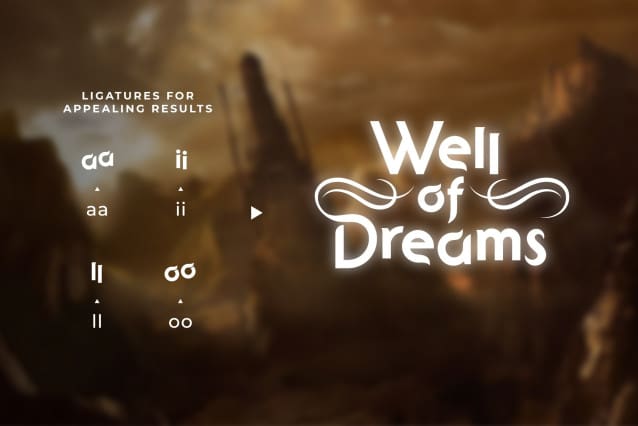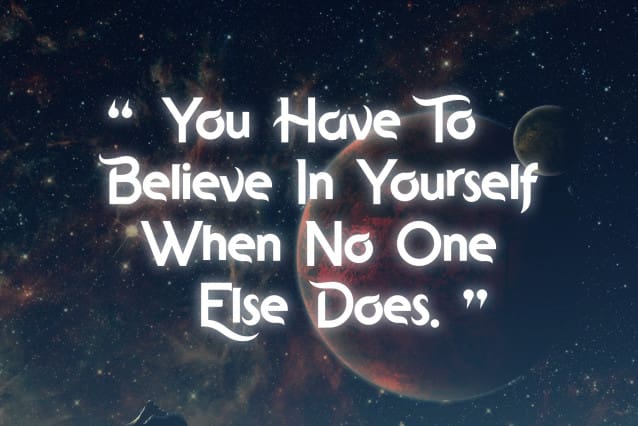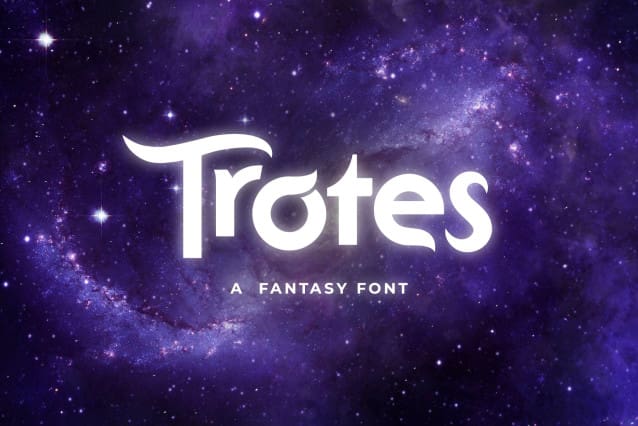
Trotes Font
Trotes Font, It would be a perfect choice to design posters, affiches, logos, t-shirt and magazine prints, eye-pleasing typographic designs and more.